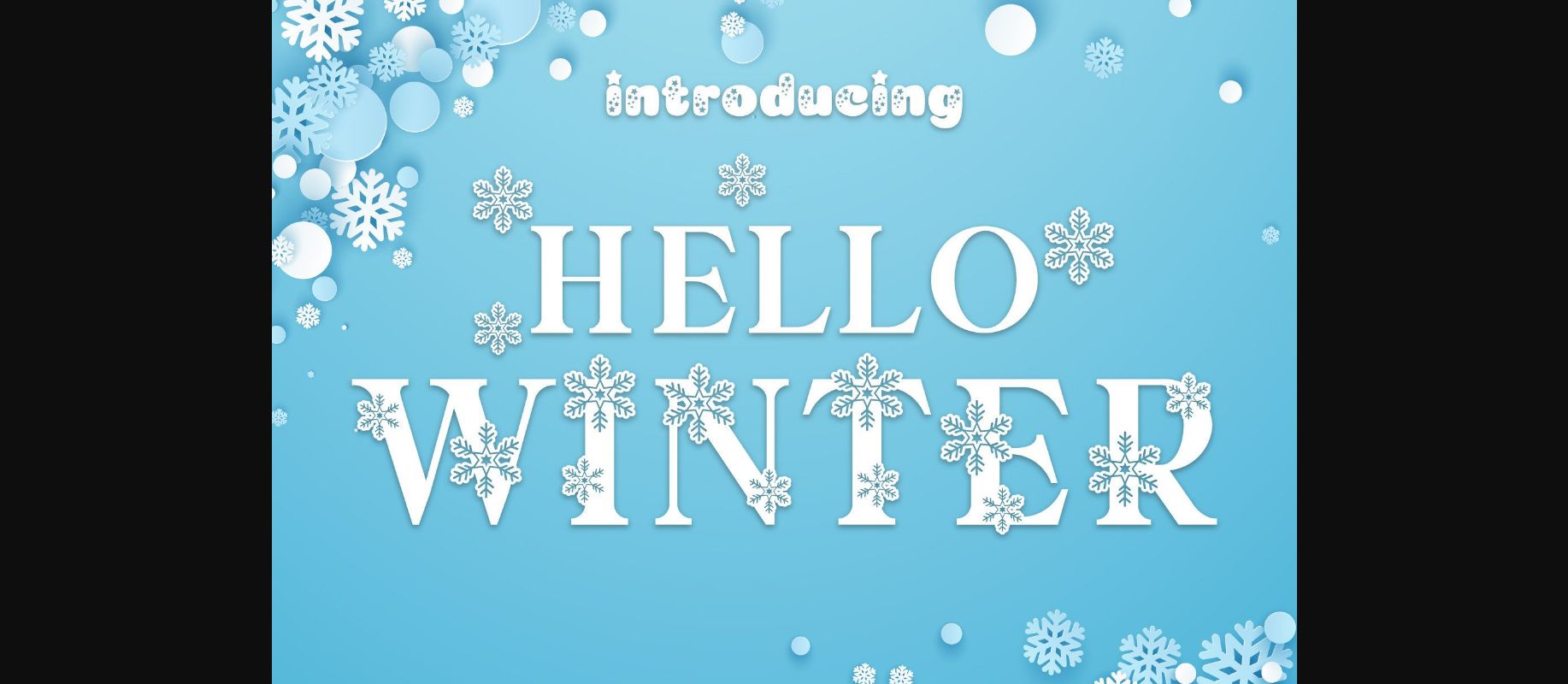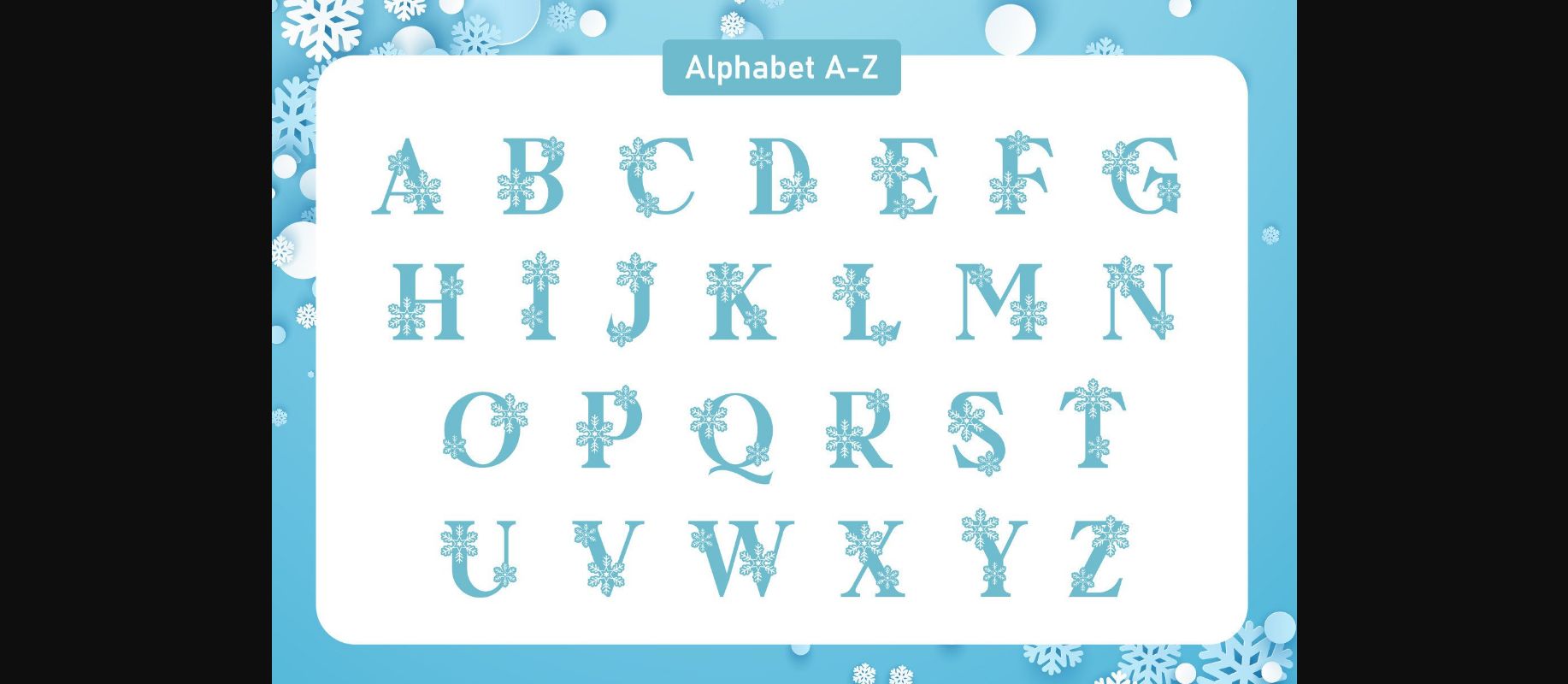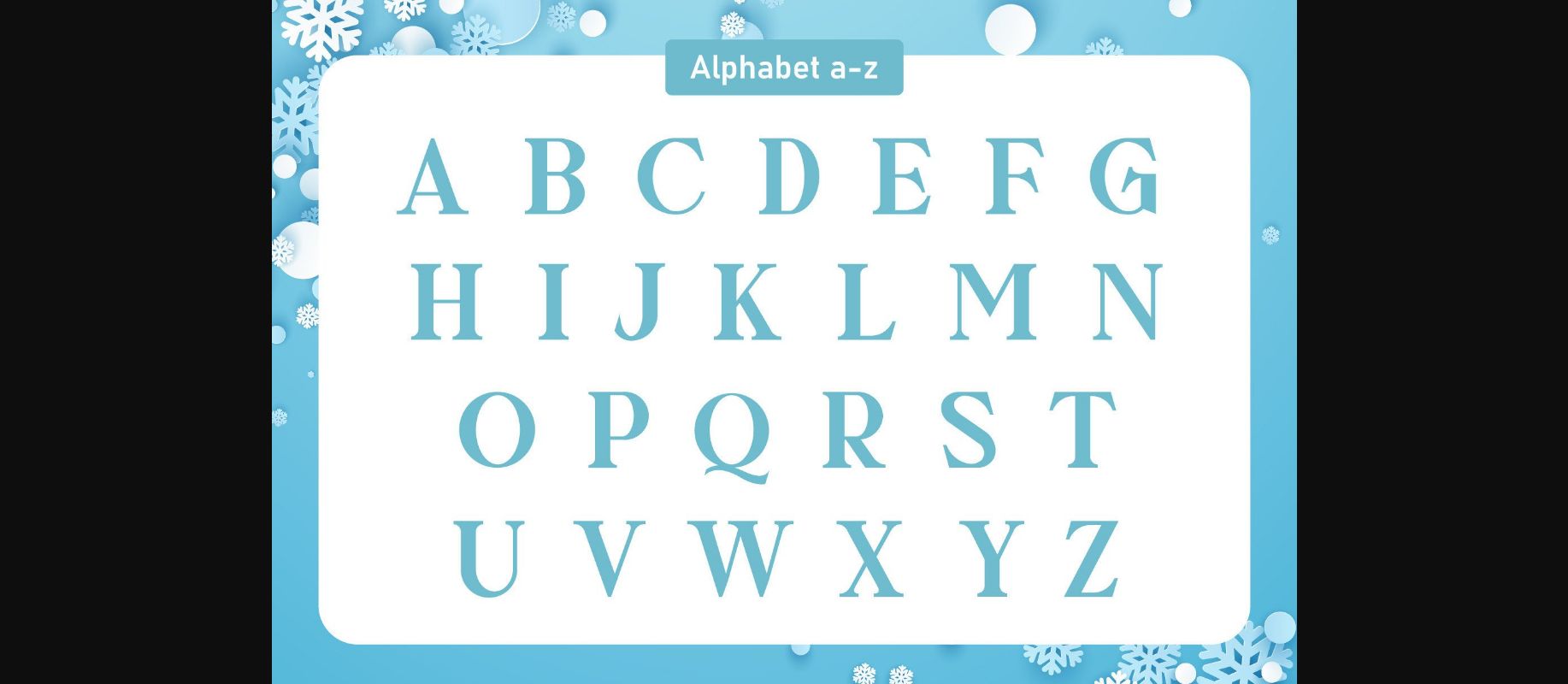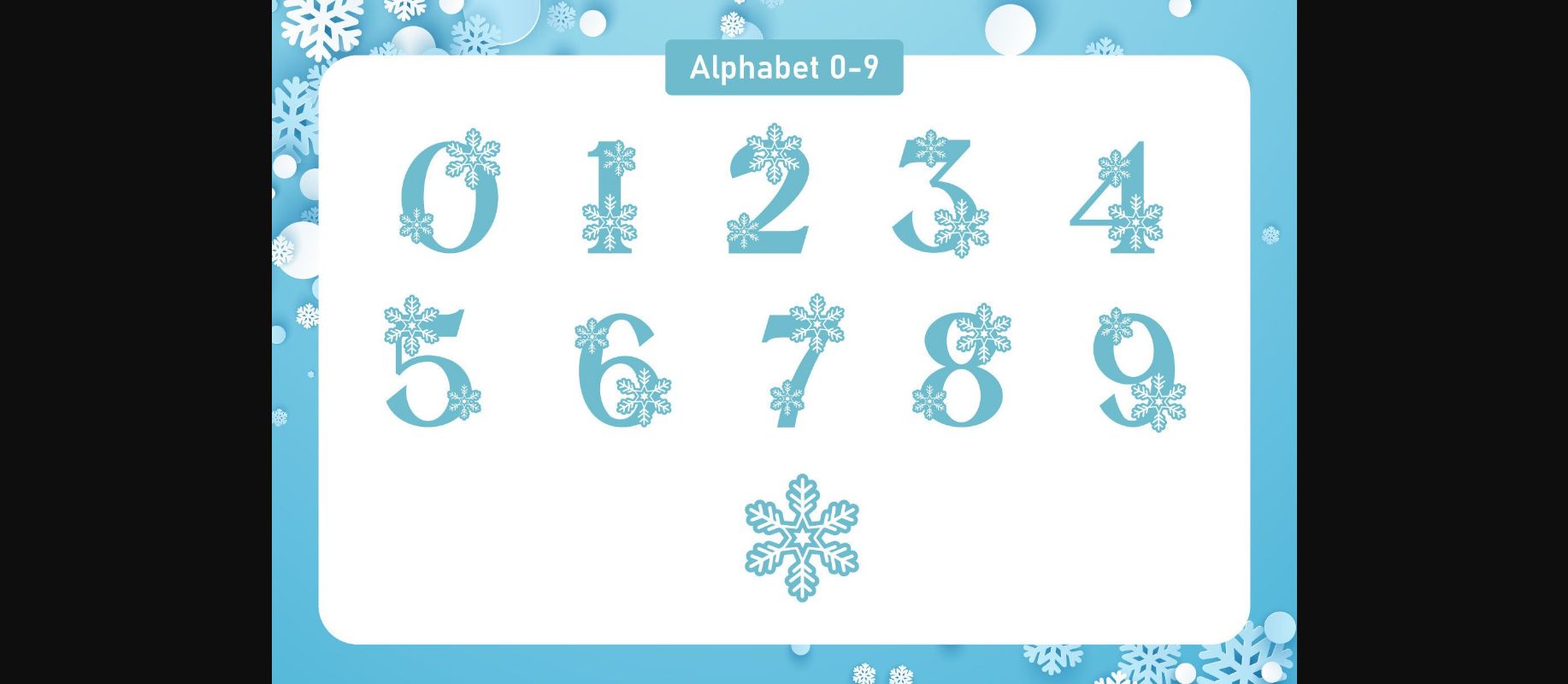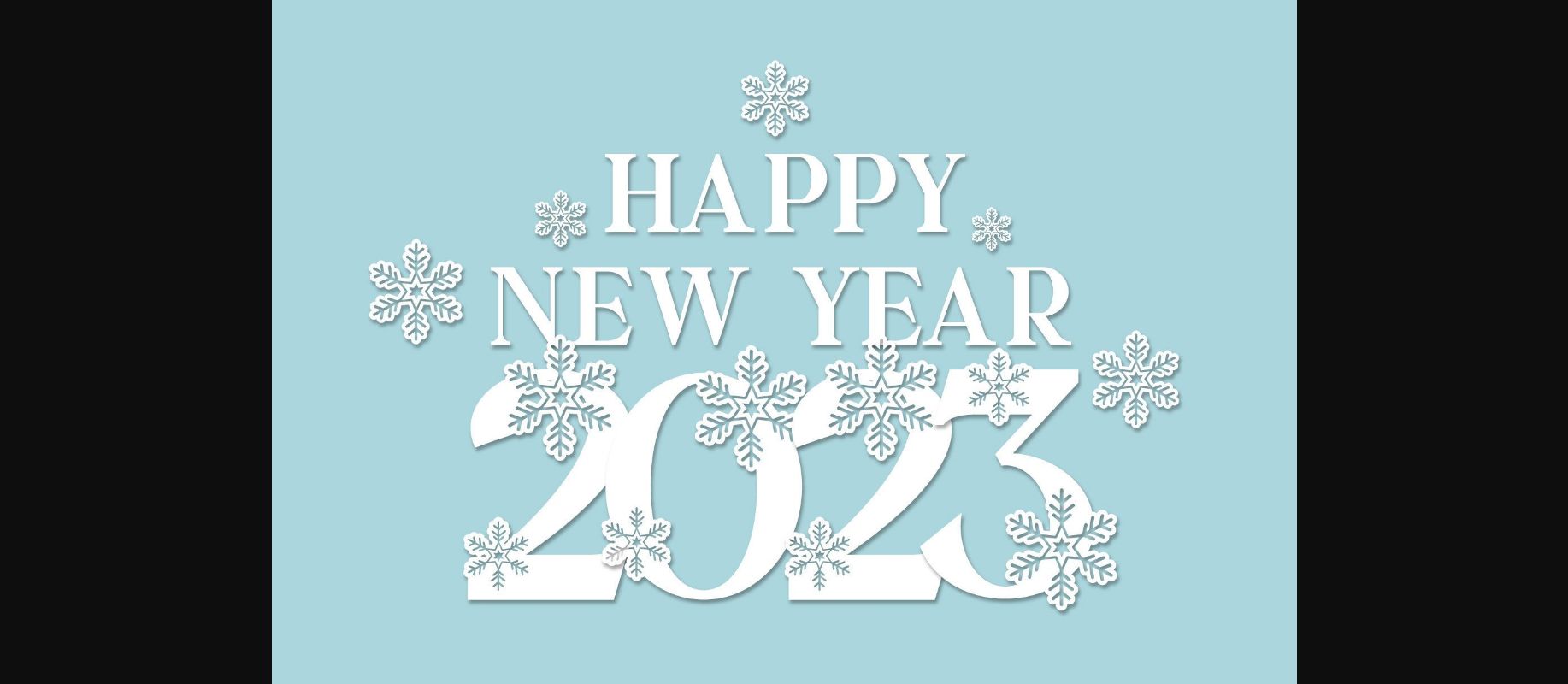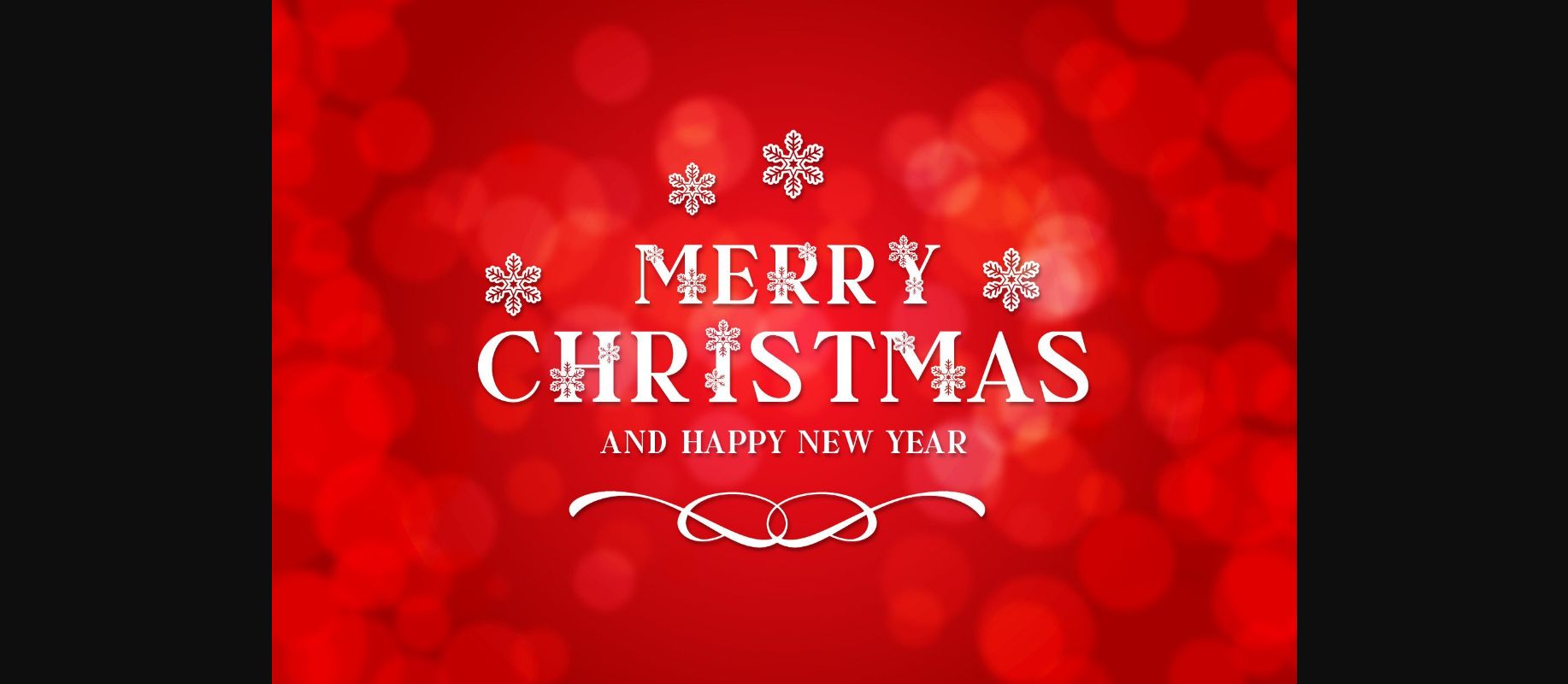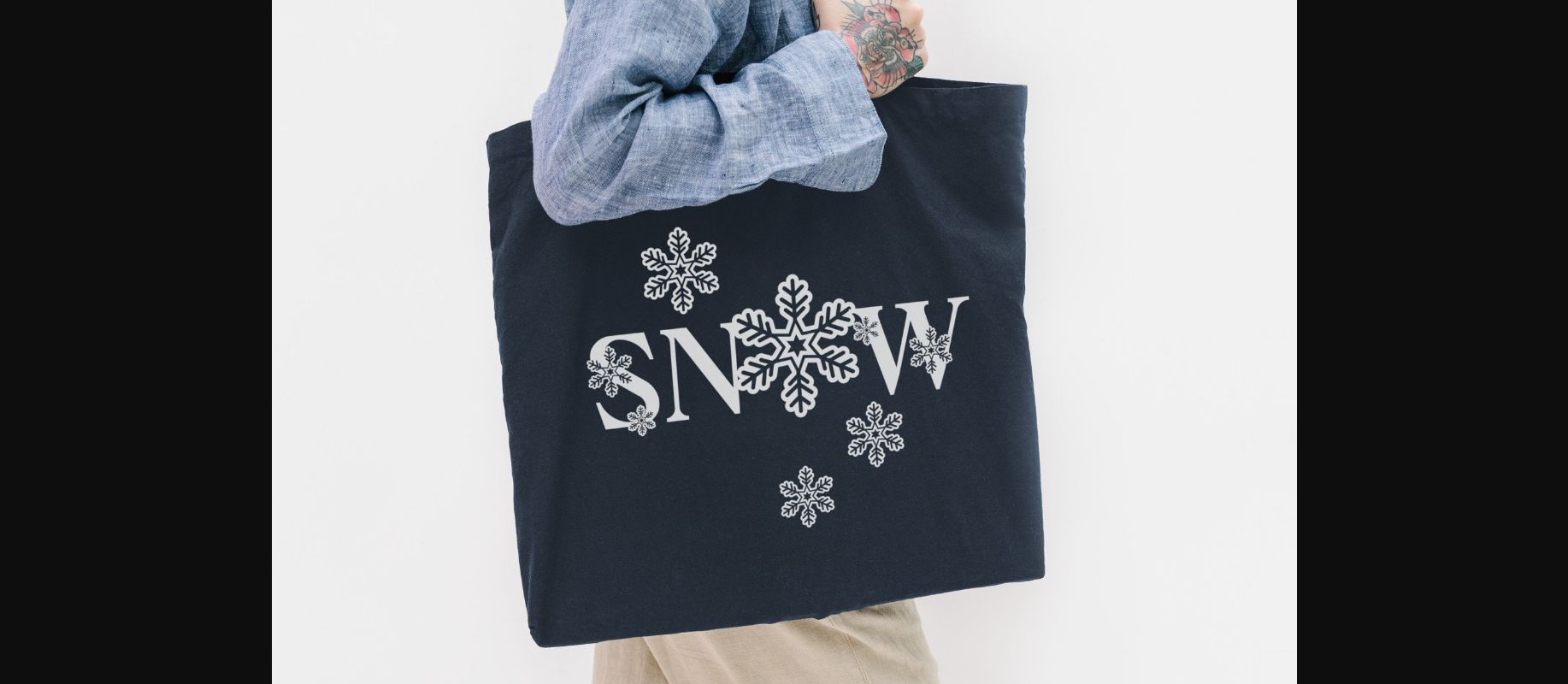
Hello Winter Font
About Hello Winter Font
Hello Winter is a fun decorative font, perfect for your winter and Christmas-themed designs. Fall in love with its authentic feel and use it to create gorgeous invitations, beautiful stationary art, eye-catching social media posts, and cute greeting cards. Add it now to your fonts library, and start creating spectacular designs!